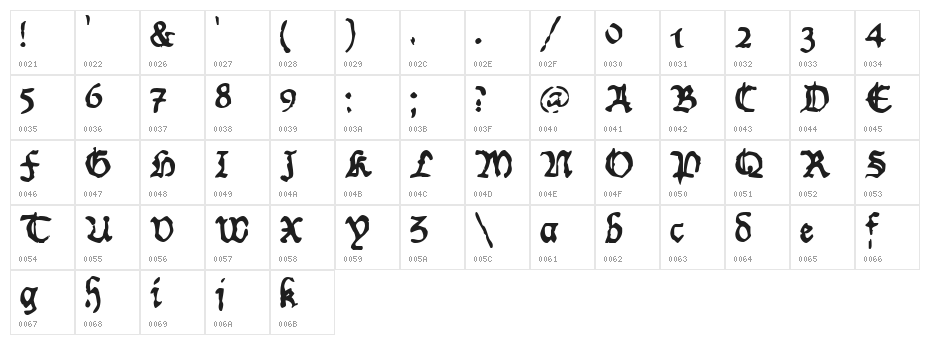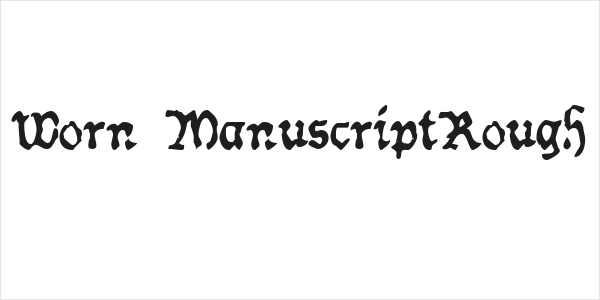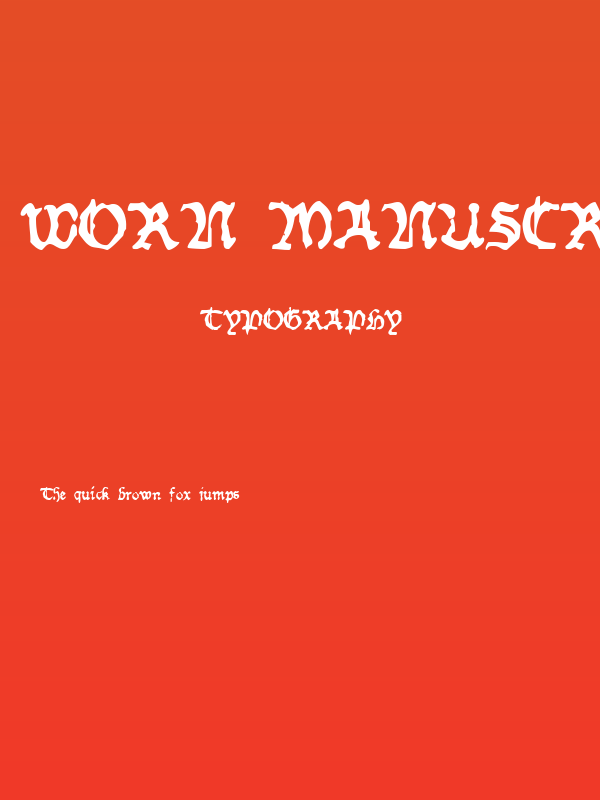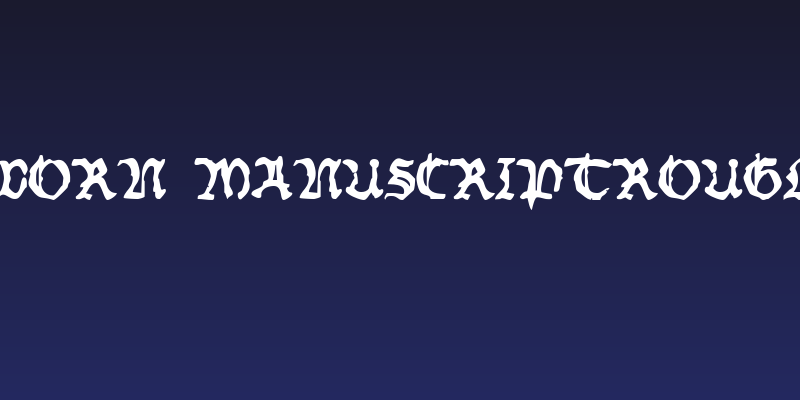
Worn ManuscriptRough Font
Worn ManuscriptRough Description
This font exudes a historical and aged appearance, reminiscent of ancient manuscripts and calligraphy. The characters are intricately designed with a rough, textured look that suggests wear and age, adding to its authenticity and charm. The uppercase and lowercase letters maintain a consistent style, with sharp edges and a slightly uneven baseline that enhances its vintage feel. Numbers and special characters are equally detailed, fitting seamlessly into the overall aesthetic. This font is perfect for projects that require a touch of antiquity and elegance, such as historical documents, themed invitations, or artistic designs.
| Use Case | Headlines, Logos, Decorative text |
| Proposed Projects | Ideal for historical documents, themed invitations, artistic designs, and branding that requires an antique touch. |